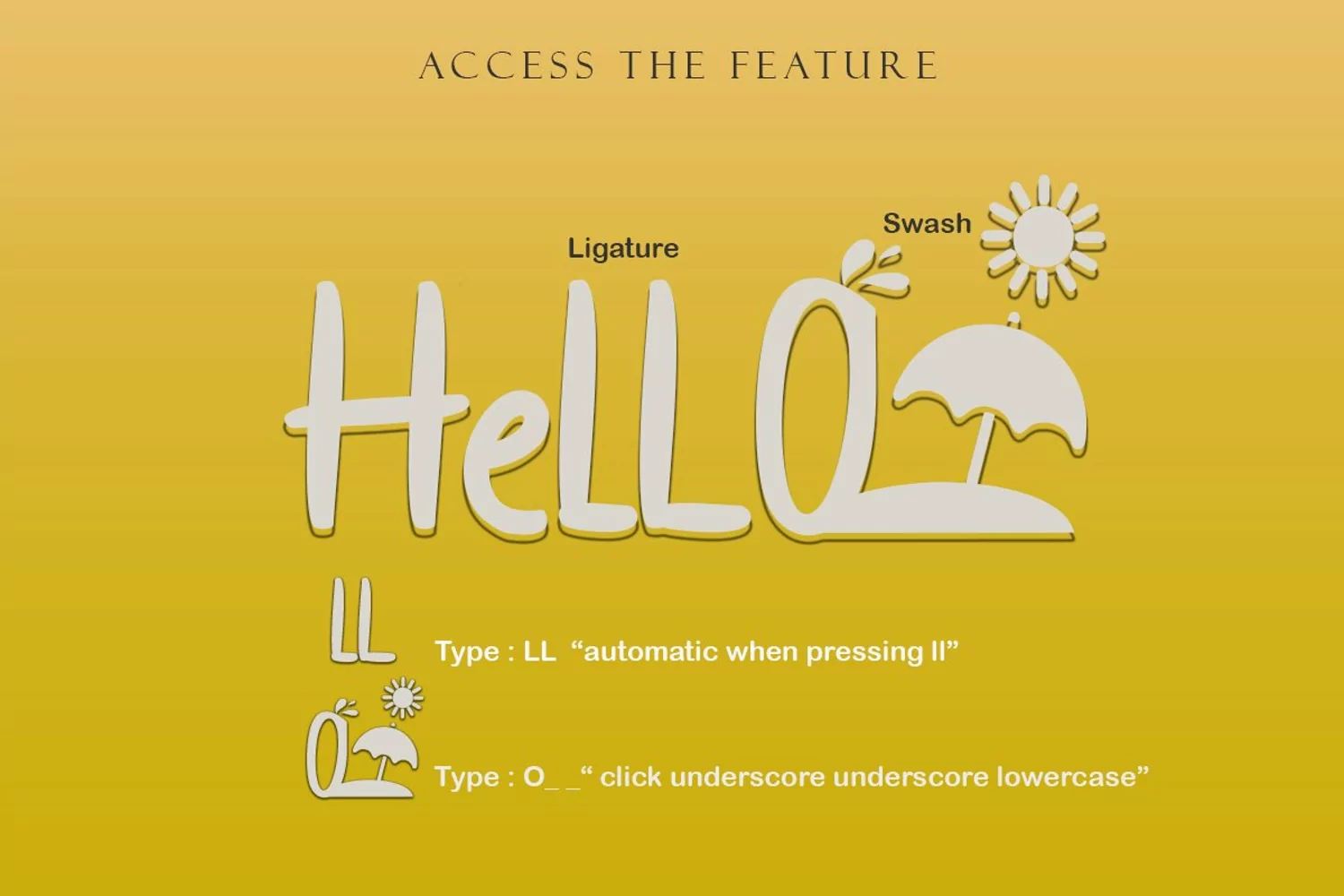
"Hello Miami" is a unique display font. This font is complemented by palm tree and beach decorations. It is perfect for your summer season. In addition, this font can also be used for a variety of your needs (product promotion, holiday promotion, congratulations, invitations, quotes, social media status, logos, branding, banners, posters, prints, etc.)